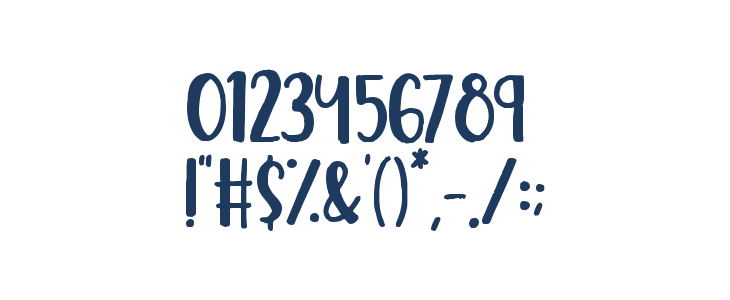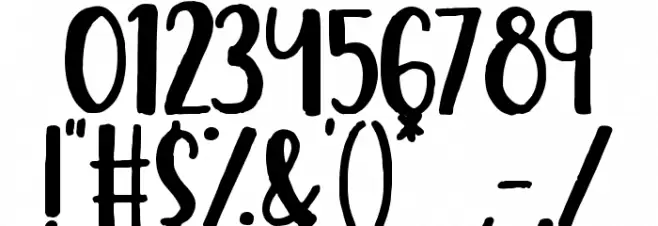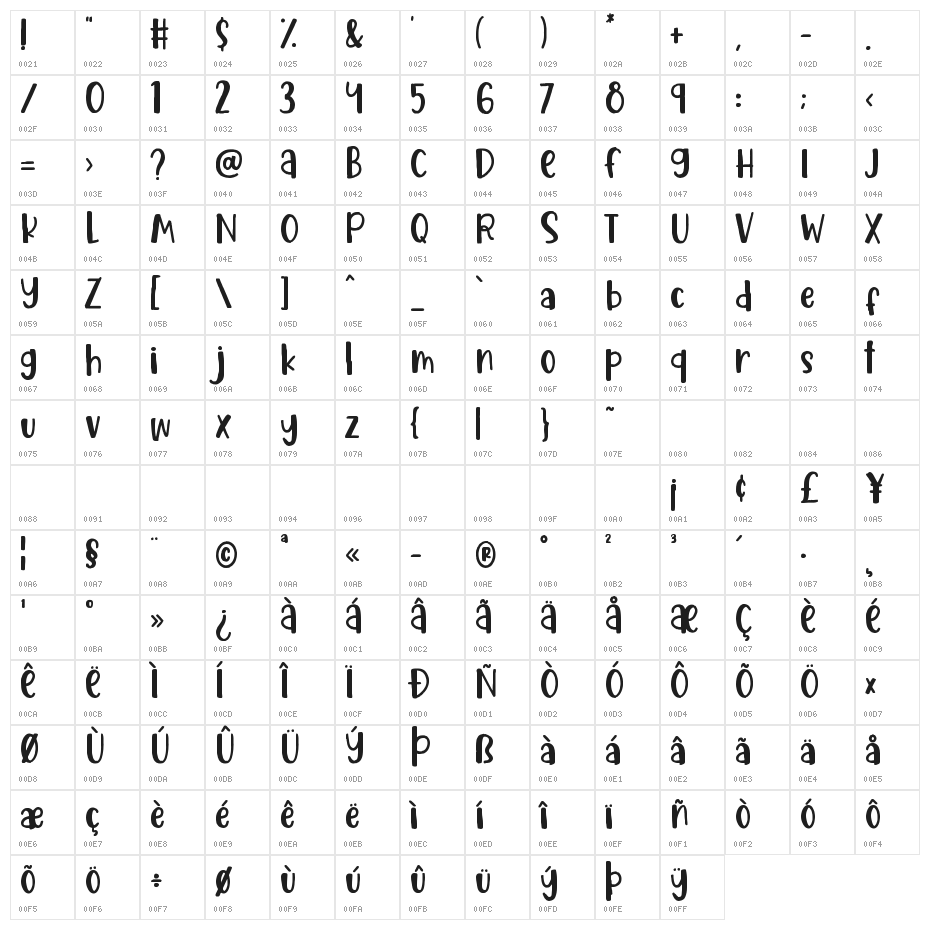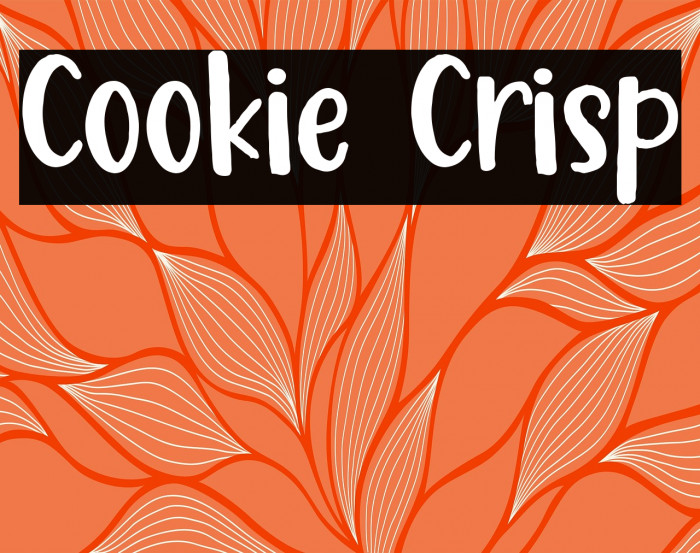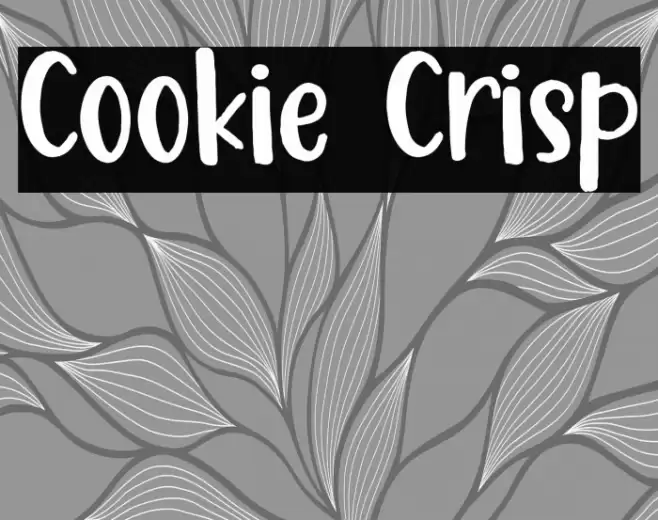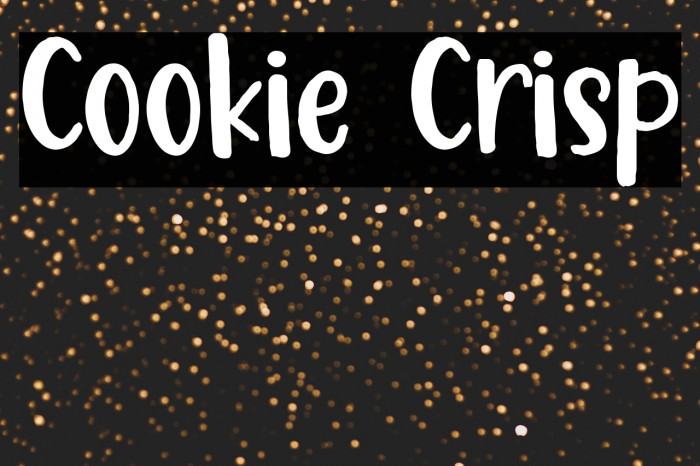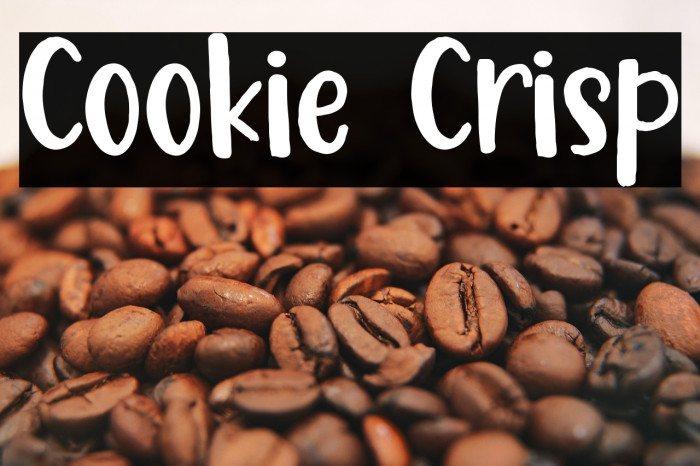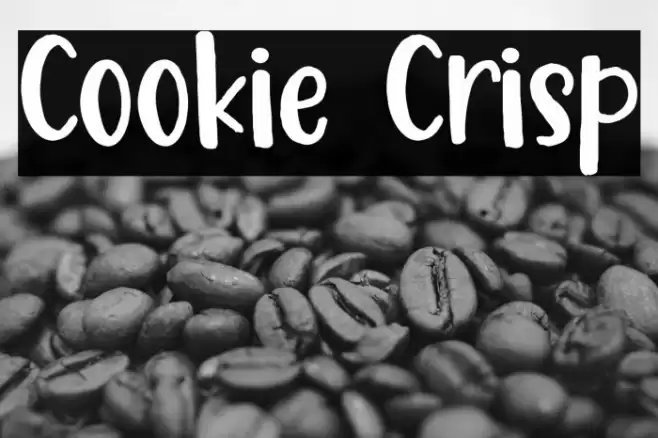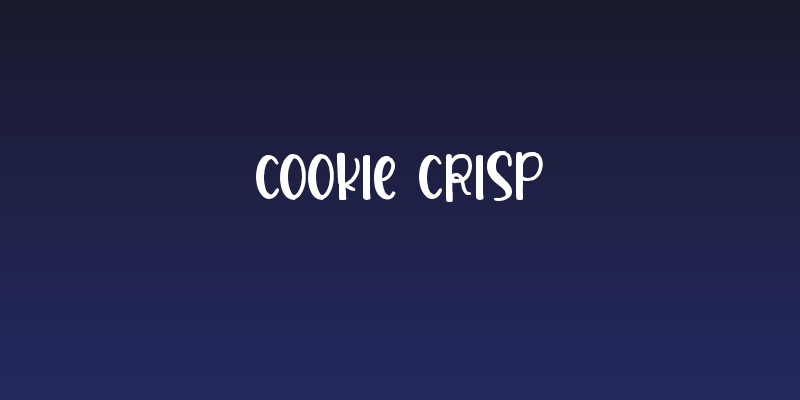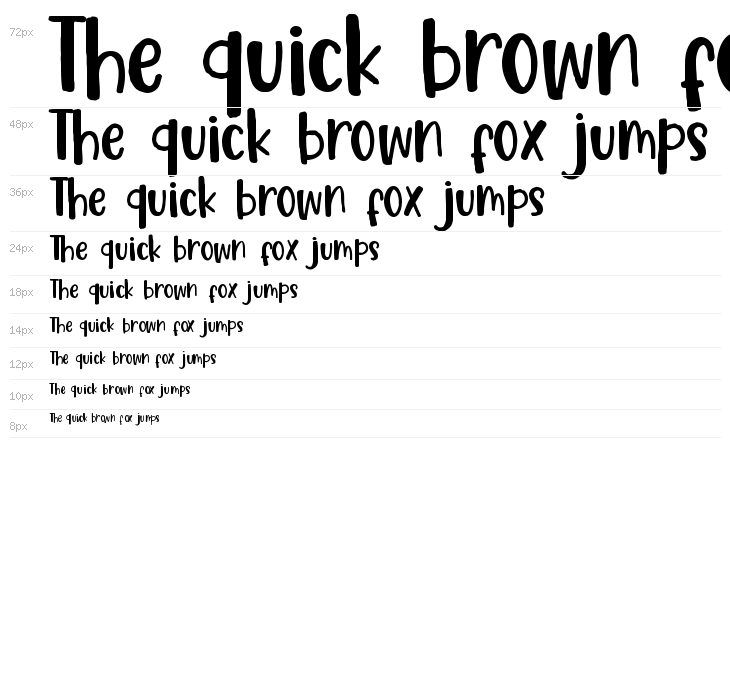
Cookie Crisp Font
Cookie Crisp Description
This playful and whimsical font features a hand-drawn style with a bold and slightly irregular appearance. The letters are characterized by their rounded edges and varying stroke thickness, giving them a lively and dynamic feel. The uppercase and lowercase letters maintain a consistent style, while the numerals and special characters complement the overall design. The font's informal and friendly nature makes it suitable for projects that require a touch of fun and creativity. Its unique style is perfect for capturing attention and conveying a sense of joy and spontaneity.